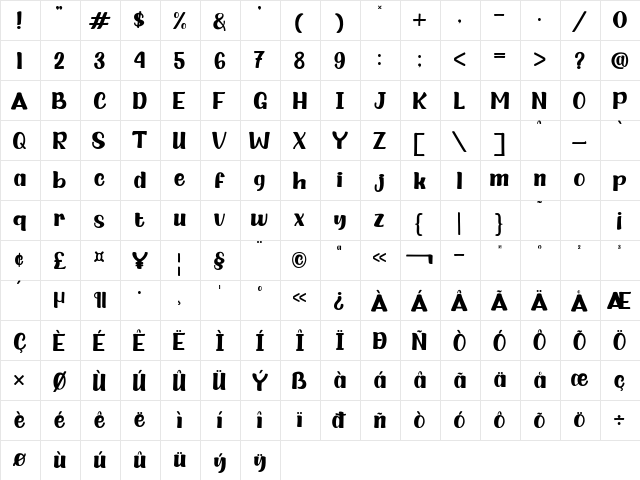
Bubble Jelly Regular
Design Context for Bubble Jelly Typeface
Bubble Jelly has an approachable, lighthearted character — its loose, expressive forms are well-suited to children's content, casual branding, and fun-first design.
Font Pairing: Pairs well with a rounded or humanist sans for body copy, maintaining the friendly tone without relying on Bubble Jelly to carry extended reading.
Pro Tip: Avoid using Bubble Jelly for long passages of text — it works best for headlines, labels, and short calls to action.